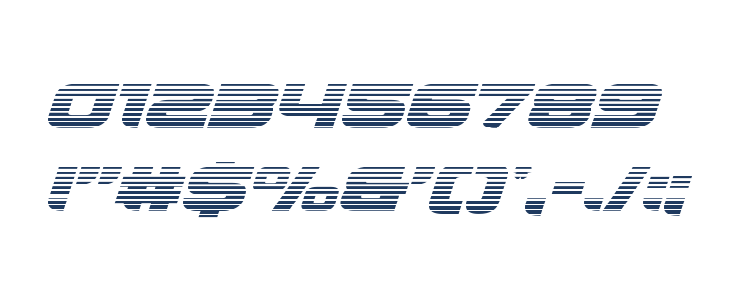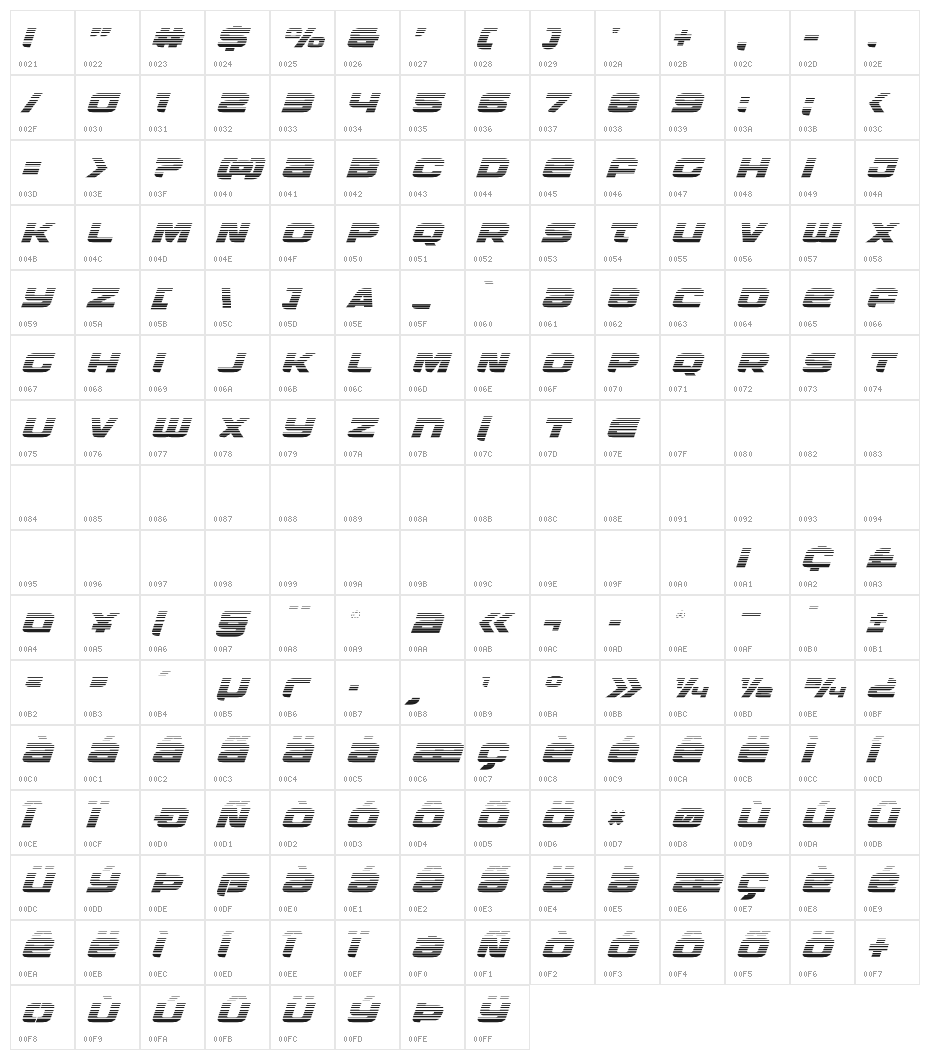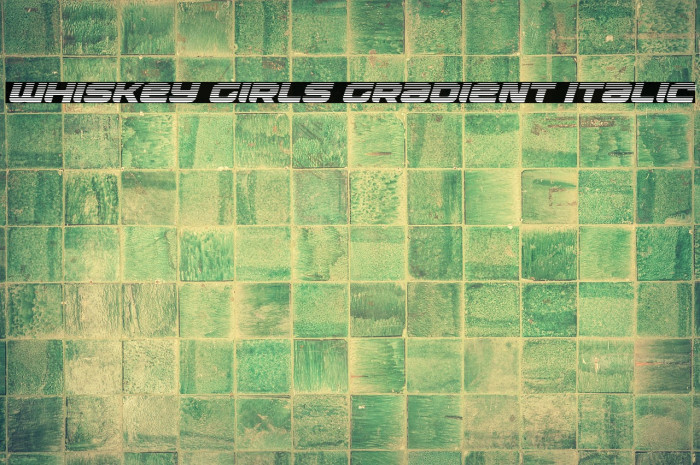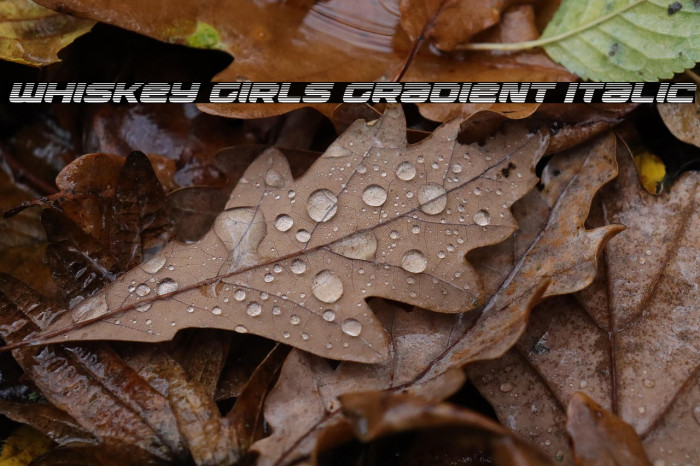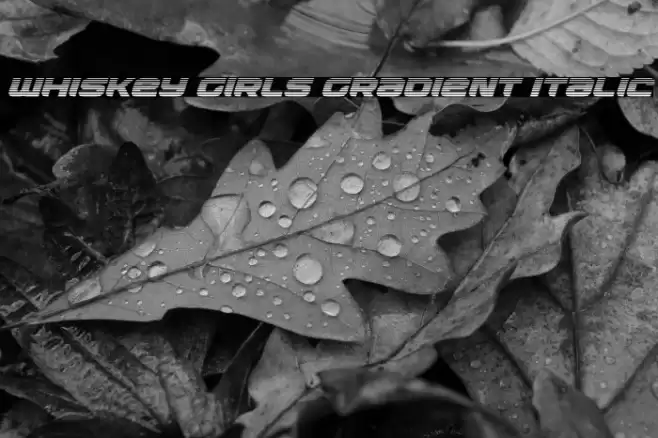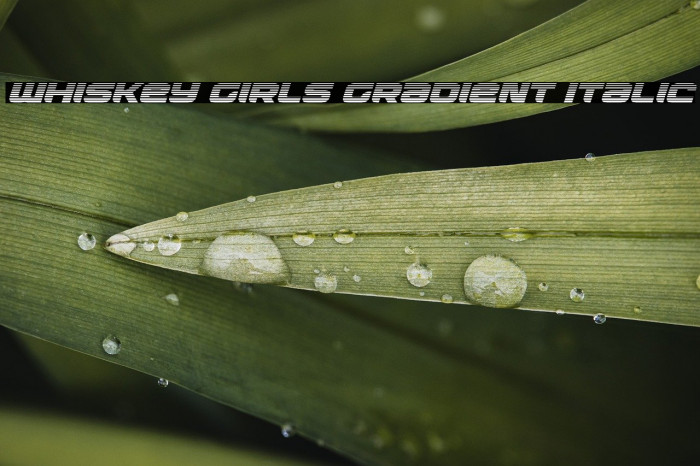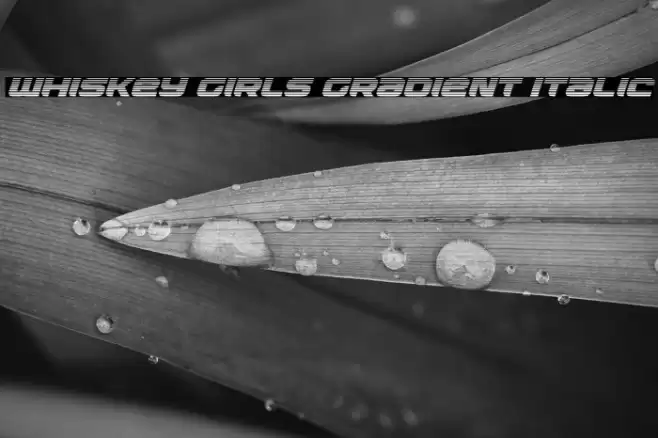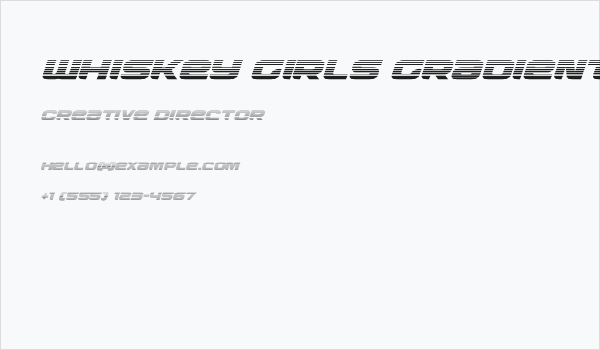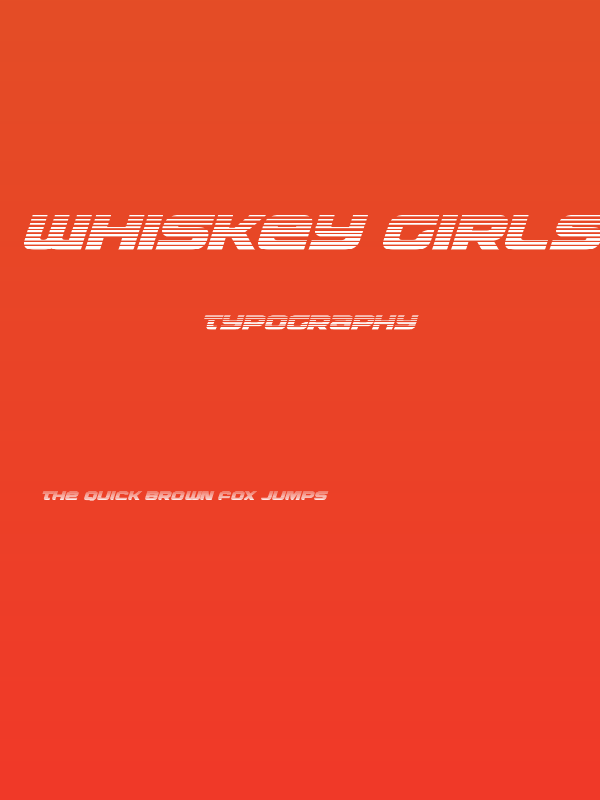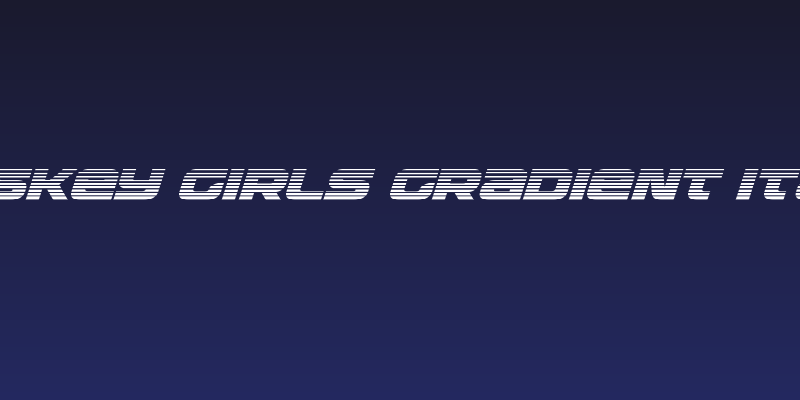
Whiskey Girls Gradient Italic Font
Whiskey Girls Gradient Italic Description
This font features a bold, italicized style with a unique gradient effect created by horizontal lines running through each character. The design is modern and dynamic, giving a sense of movement and speed. The uppercase and lowercase letters, as well as numbers and special characters, maintain a consistent slanted orientation, enhancing the italicized appearance. The horizontal lines create a striped pattern that adds depth and texture, making it suitable for eye-catching designs. The overall aesthetic is futuristic and sleek, ideal for projects that require a bold statement.
| Proposed Projects | Ideal for sports branding, futuristic designs, automotive advertisements, and dynamic posters. |